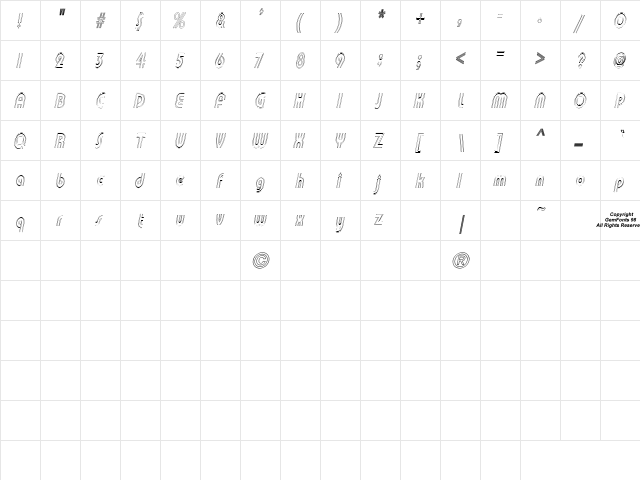
Pi in the SciFi Regular
Design Context for Pi in the SciFi Typeface
Pi in the SciFi channels digital-age aesthetics through its sharp, structured letterforms — ideal for brands that want to signal innovation.